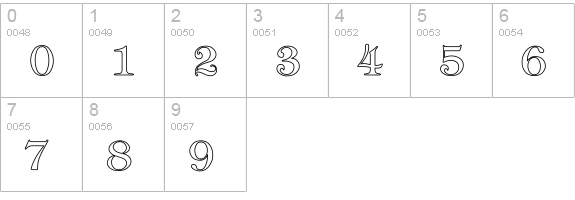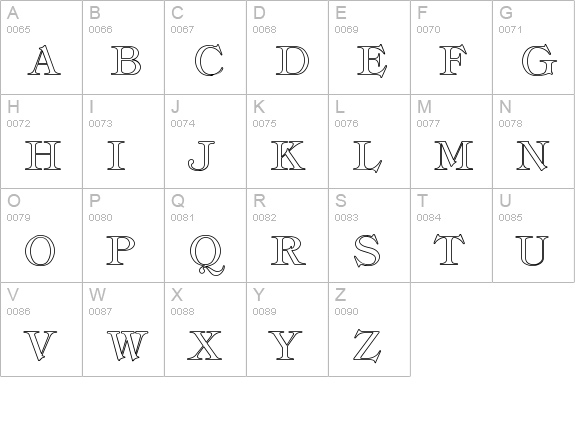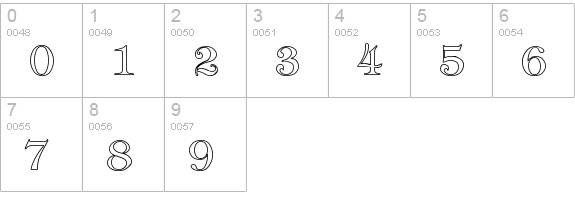
Tiffany-Normal Hollow Font Details
Tiffany-Normal Hollow is the standard, neutral variant in the Tiffany typeface family \xE2\x80\x94 well suited to general body text, paragraphs, and standard typographic work.
Introducing Tiffany-Normal Hollow, a captivating and versatile font that effortlessly combines elegance with a touch of whimsy. Designed with meticulous attention to detail, this typeface exudes a sense of refined beauty that is sure to captivate and inspire. Tiffany-Normal Hollow's unique hollow design adds a delightful and playful element to any project. Its delicate curves and intricate lines create a visually stunning effect, making it the perfect choice for adding a touch of sophistication to your designs. Whether you're designing invitations, logos, or branding materials, this font is bound to make a lasting impression. One of the most remarkable aspects of Tiffany-Normal Hollow is that it is available for free. Yes, you read that right! This exceptional font can be freely downloaded at FontsMarket.com, making it accessible to designers, artists, and creatives of all levels. Now, you can add a touch of elegance to your projects without breaking the bank. With its wide range of glyphs and extensive language support, Tiffany-Normal Hollow offers endless possibilities for your creative endeavors. Whether you're aiming for a classic and timeless look or a modern and edgy vibe, this font has got you covered. Its versatility knows no bounds, allowing you to create stunning designs across various mediums. So why wait? Download Tiffany-Normal Hollow today from FontsMarket.com and unleash your creativity. With its free availability and unmatched beauty, this font is a must-have for any designer looking to make a statement. Elegant, whimsical, and absolutely breathtaking, Tiffany-Normal Hollow is sure to elevate your designs to new heights.